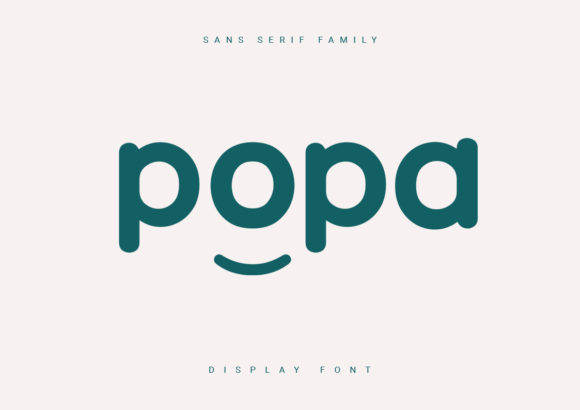
Introducing Popa Font, the cleanly designed font that brings a touch of natural elegance to your designs. Created by the renowned Valian, Popa showcases Valian’s expertise in crafting digital masterpieces. This display font exudes a unique charm that sets it apart from the ordinary.
With its neat and simple style, Popa has the versatility to blend seamlessly into various design projects. Whether you’re creating stunning logos, eye-catching posters, or captivating website designs, Popa delivers every time. Its clean lines and natural curves bring a sophistication to your work that’s sure to leave a lasting impression.
Popa's simplicity and clarity make it perfect for a wide range of designs. From minimalistic projects to those with ornate details, Popa adapts effortlessly, enhancing your designs with its subtle elegance. Its versatility shines through whether you're creating a logo, designing a website, or crafting social media graphics.
Popa's calming effect adds a soothing touch to any project. Its smooth curves and gentle strokes exude an aura of tranquility, making it an ideal choice for projects that aim to evoke a sense of serenity and peace. Its calming presence brings harmony to visual compositions, inviting viewers to linger and appreciate the finer details.